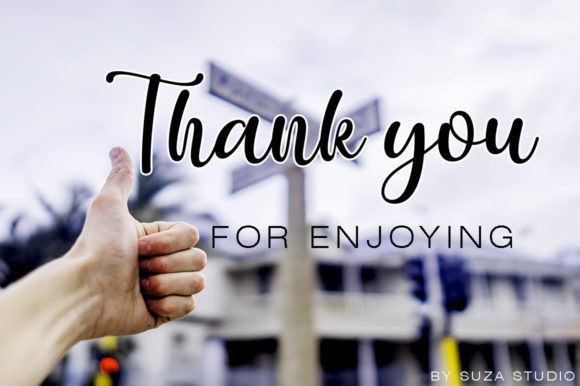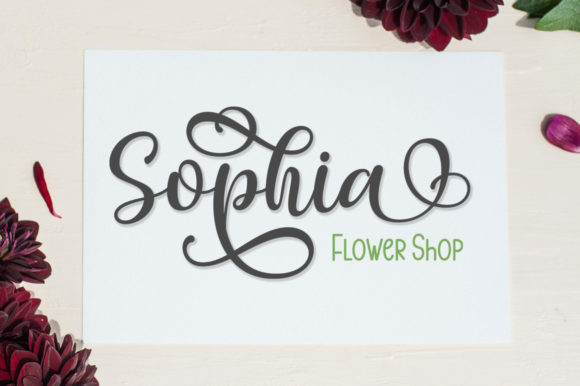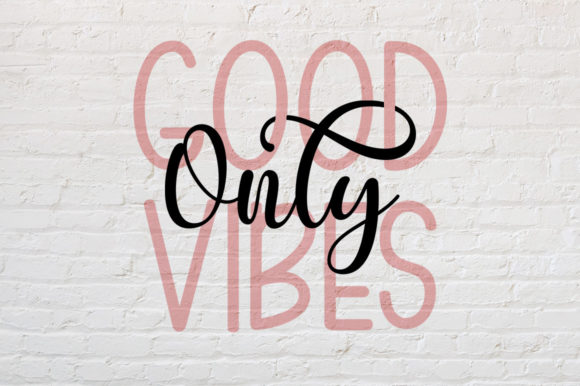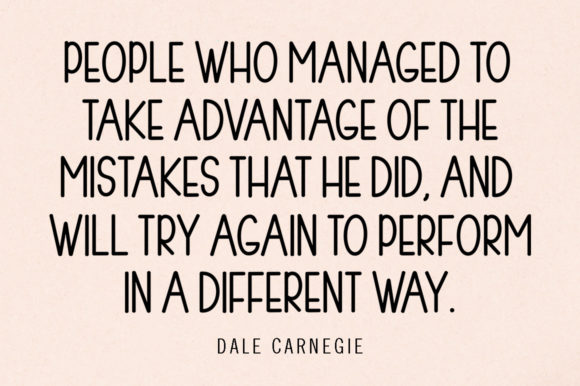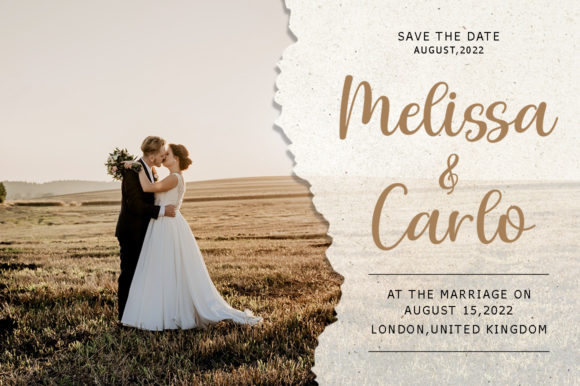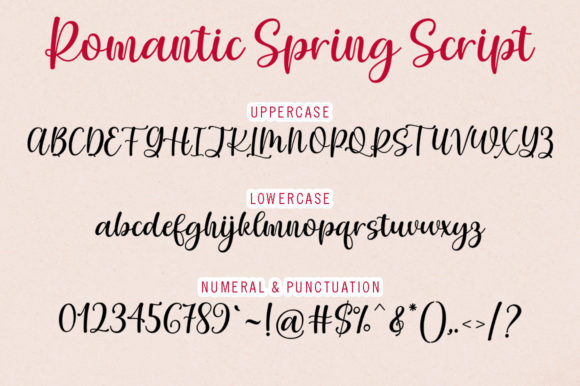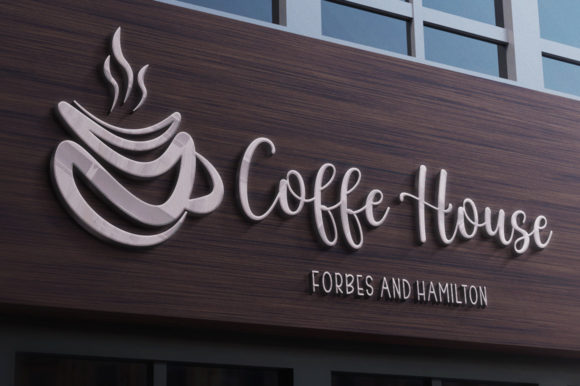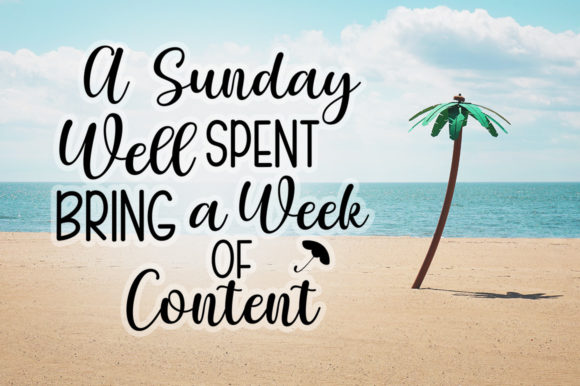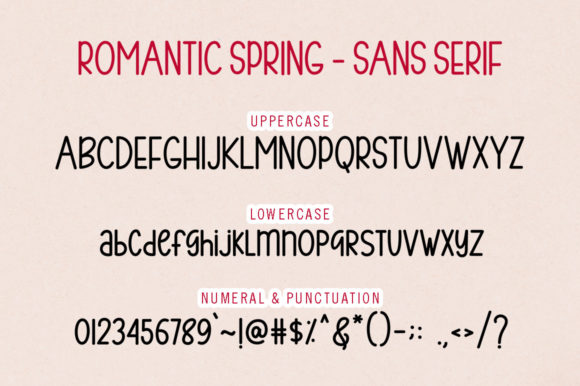
Romantic Spring Font
Romantic Spring Duo Font is a charming and sweet calligraphic typeface that features characters dancing along the baseline, adding a delightful touch to your design projects. This font is not just a typeface; it’s a romantic and luxurious addition that brings a touch of elegance to your creative endeavors. With its PUA encoding, you can effortlessly access a wealth of amazing glyphs and ligatures to enhance the versatility of your designs.
The romantic and sweet nature of Romantic Spring makes it perfect for a variety of design projects where a touch of luxury and charm is desired. Whether you’re working on invitations, wedding materials, branding, or any project that requires a romantic flair, this font duo is a valuable asset.
The characters in Romantic Spring appear to dance along the baseline, contributing to a visually engaging and dynamic aesthetic. This unique quality sets the font apart, making it suitable for projects that aim to evoke a sense of romance and sophistication.
With its PUA encoding, Romantic Spring allows easy access to a wide range of glyphs and ligatures. This feature enhances your creative freedom, enabling you to experiment with various character combinations and create truly unique and personalized designs.
In summary, Romantic Spring Duo Font is a romantic and sweet calligraphic typeface that brings a touch of luxury to your design projects. Its unique baseline design and PUA encoding make it a versatile and delightful choice for creating visually appealing and elegant designs in various contexts. Whether used for invitations, branding, or any project requiring a romantic aesthetic, Romantic Spring is a charming addition to your creative toolkit.